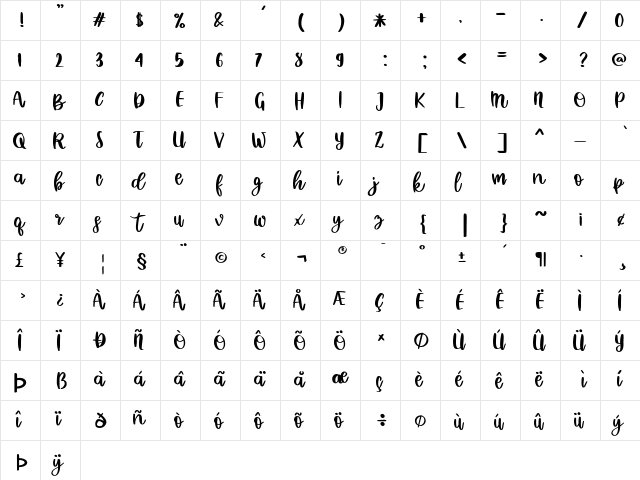
Mybela Regular
| Foundry | Scratch Design |
| Designer | Made Arini Hanindharputri |
Design Context for Mybela Typeface
Mybela is a composed and adaptable typeface that performs quietly and consistently across a wide range of design contexts.